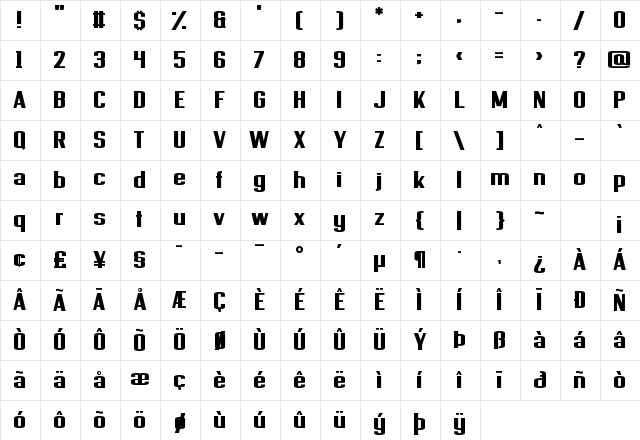
Complete Provisionary Regular glyph index. Displaying only characters natively supported by Provisionary Regular font.
Provisionary is a composed and adaptable typeface that performs quietly and consistently across a wide range of design contexts.